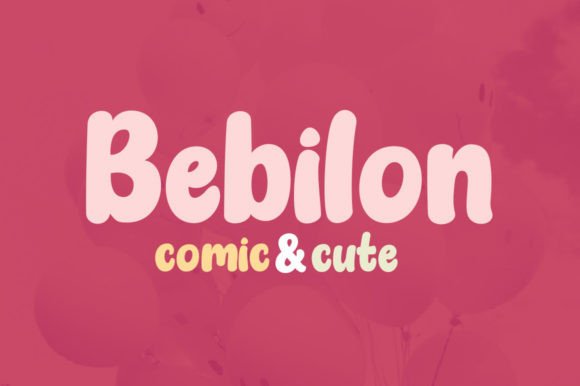
Bebilon Font: The Perfect Choice for Children’s Parties and More
The Bebilon Font is a unique and charming typeface that has gained popularity for its smooth and bold appearance, making it an ideal choice for children’s parties and various design projects. Originally designed for a little boy’s birthday party, this font has proven to be a versatile and effective tool for creating eye-catching materials. In this article, we will explore the features and uses of the Bebilon Font, and why it’s a great addition to any designer’s collection.
The Origin of Bebilon Font
Bebilon was originally designed for a little boy’s birthday party, and its purpose was to create a fun and festive atmosphere. The font’s creator aimed to design a typeface that would be both smooth and bold, making it perfect for children’s parties. The result was a font that is not only visually appealing but also highly versatile.
Characteristics of Bebilon Font
The Bebilon Font is characterized by its smooth and bold appearance, making it suitable for a wide range of design projects. Its rounded edges and curved lines give it a friendly and approachable feel, perfect for children’s parties and other fun events. The font is also highly legible, making it easy to read in various sizes and formats.
Uses of Bebilon Font
The Bebilon Font is a versatile typeface that can be used for various design projects, including:
- Birthday Banners: Create eye-catching birthday banners with the Bebilon Font, perfect for kids’ parties and celebrations.
- Posters: Design vibrant posters for children’s events, such as birthday parties, carnivals, and festivals.
- Invitations: Use the Bebilon Font to create fun and festive invitations for kids’ parties and events.
- Flyers: Design engaging flyers for children’s activities, such as sports events, camps, and workshops.
Why Choose Bebilon Font?
There are several reasons why the Bebilon Font is a great choice for designers and non-designers alike:
- Unique and Charming: The Bebilon Font has a unique and charming appearance that sets it apart from other typefaces.
- Smooth and Bold: The font’s smooth and bold appearance makes it perfect for creating eye-catching designs.
- Highly Legible: The Bebilon Font is highly legible, making it easy to read in various sizes and formats.
- Versatile: The font can be used for a wide range of design projects, from birthday banners to posters and invitations.
Tips for Using Bebilon Font
Here are some tips for using the Bebilon Font effectively:
- Use it for Headings: The Bebilon Font is perfect for headings and titles, making it a great choice for posters, banners, and invitations.
- Pair it with Other Fonts: Experiment with pairing the Bebilon Font with other fonts to create a unique and visually appealing design.
- Use it in Large Sizes: The Bebilon Font is perfect for large sizes, making it ideal for banners, posters, and other display materials.
| Font Name | Bebilon Font |
| Author | genesislabstudio |
The Bebilon Font is a unique and charming typeface that is perfect for children’s parties and various design projects. Its smooth and bold appearance, high legibility, and versatility make it a great addition to any designer’s collection. Whether you’re designing birthday banners, posters, invitations, or flyers, the Bebilon Font is a great choice. So why not give it a try and see the difference it can make in your designs?
- What is the Bebilon Font? The Bebilon Font is a unique and charming typeface originally designed for a little boy’s birthday party.
- What are the characteristics of the Bebilon Font? The Bebilon Font is characterized by its smooth and bold appearance, making it perfect for children’s parties and other fun events.
- What are the uses of the Bebilon Font? The Bebilon Font can be used for various design projects, including birthday banners, posters, invitations, and flyers.